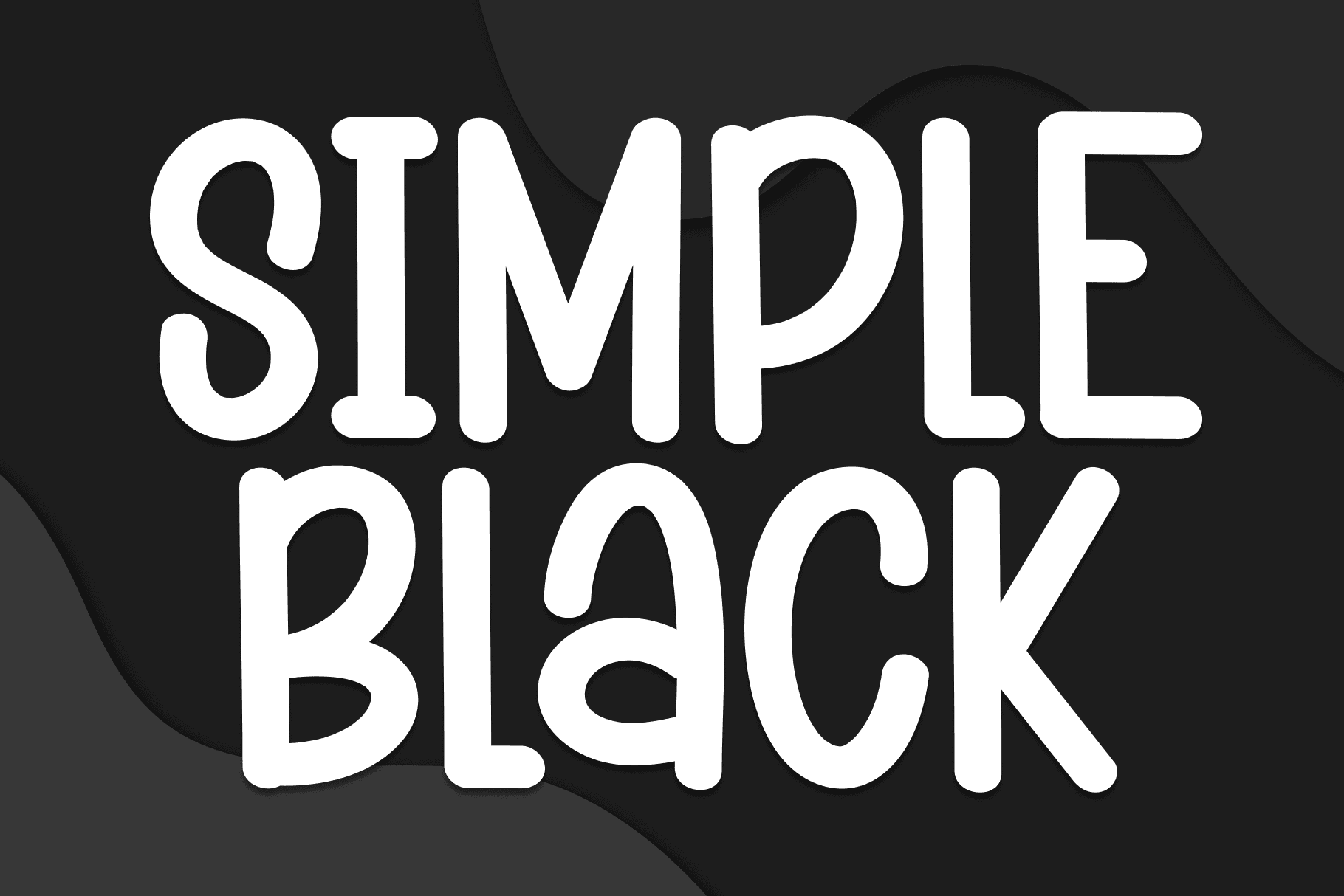
Discovering the Charm of Simple Black Font: Your Next Design Essential In the ever-evolving world of typography, finding the right font can truly elevate your creative projects. Enter Simple Black, a delightful handwritten font that radiates warmth a...